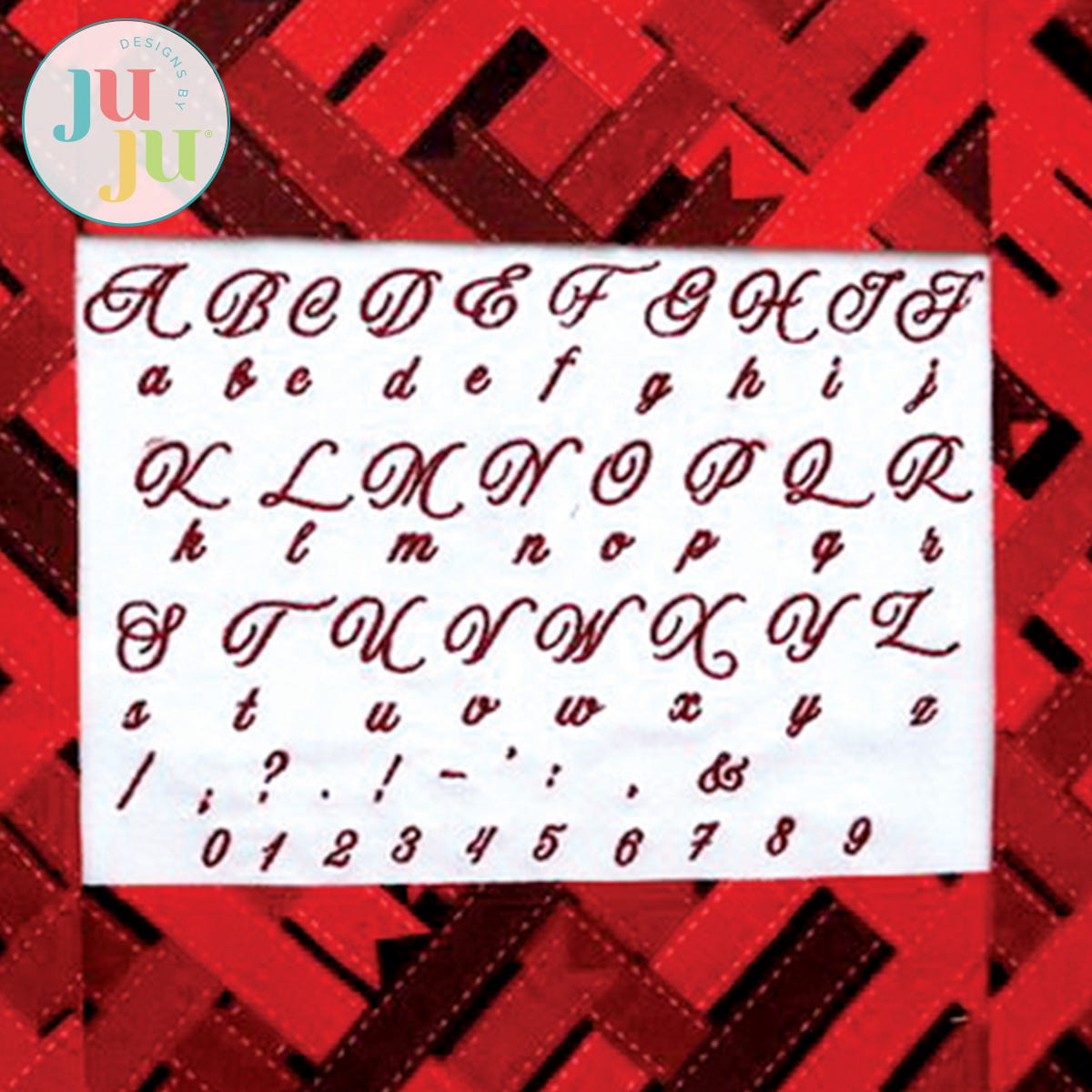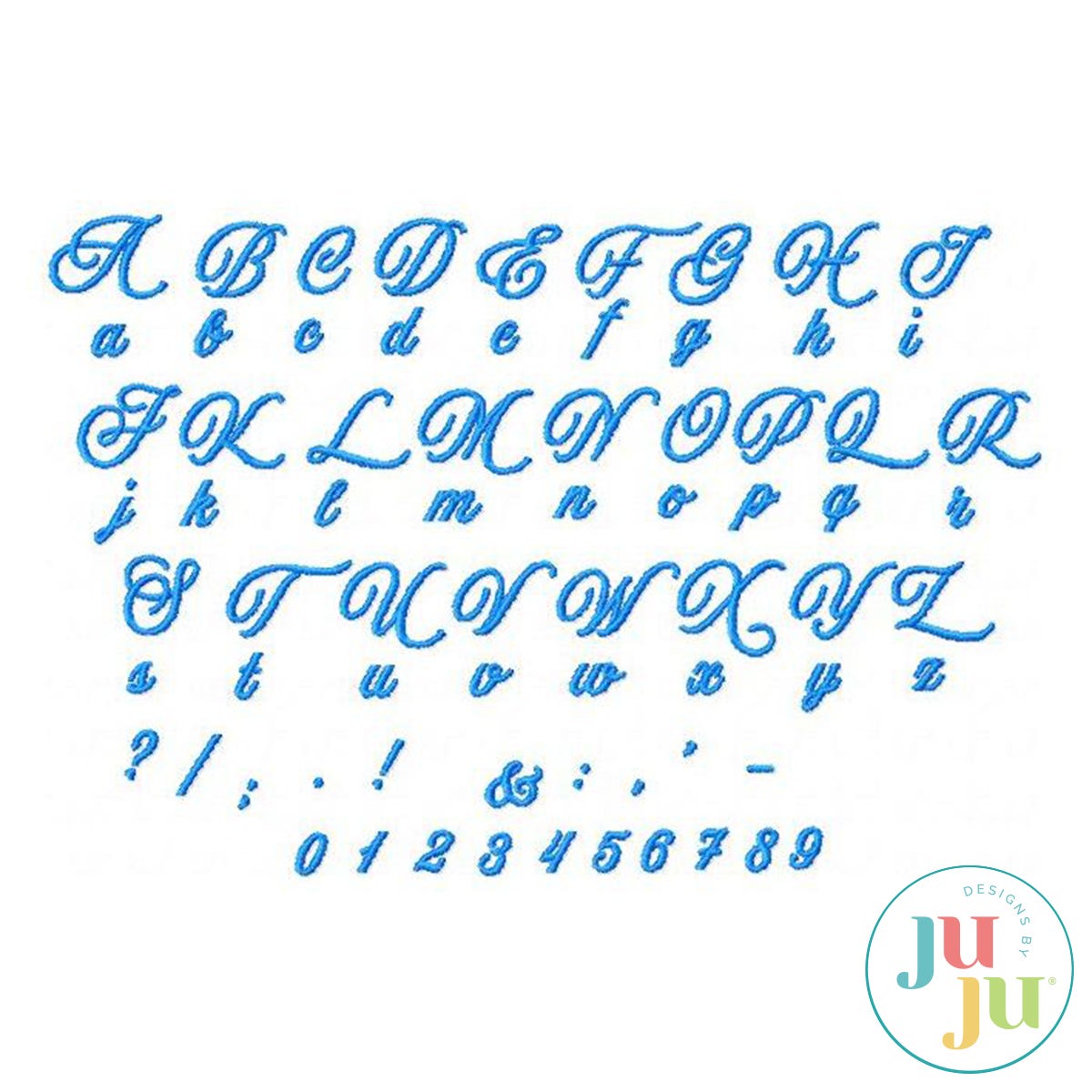
Aurora Satin Stitch Embroidery Font by Oma's Place
This elegant, whimsical font is available in two sizes: approximately 0.75” tall for capital letters (some may be slightly taller due to descenders) and a smaller version measuring about 1/2” tall. The larger capitals can also be used as a small monogram, while the font overall is perfect for personalizing gifts and labels. Your download includes all uppercase and lowercase letters, numbers 0 through 9, and commonly used punctuation. Files are provided in 10 different machine formats, as well as BX format for Embrilliance users.